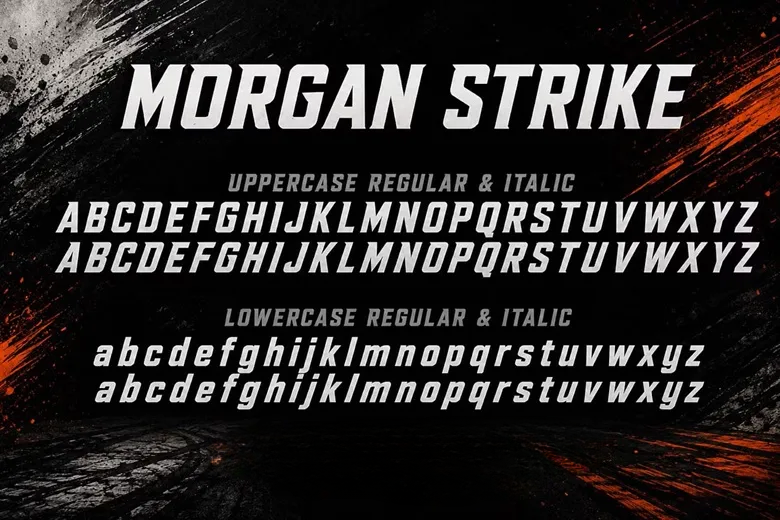
Morgan Strike Font is a bold and aggressive display typeface featuring sharp angled lines, strong vertical strokes, and a commanding military style. Its powerful combat inspired appearance gives every design a tough, fearless, and action packed look.